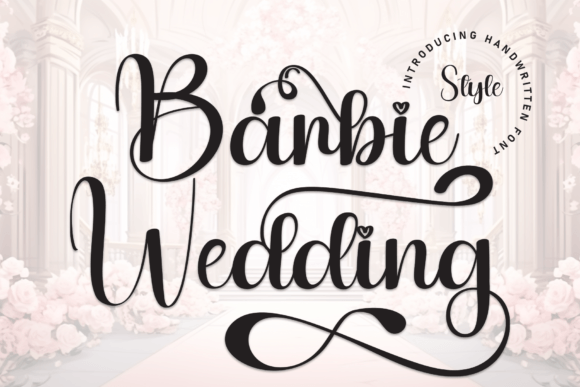
The Sweetest Wedding Invitation: A Closer Look at the Barbie Wedding Font
Have you ever found yourself flipping through wedding magazines, envisioning the perfect invitation for your special day? Maybe you’ve even sketched out a few designs in your notebook, trying to capture the essence of a whimsical and romantic celebration. For designers and brides-to-be alike, the right font can make all the difference in setting the tone for a magical day.
Enter the Barbie Wedding Font, a delightful handwritten display font that’s as sweet as it is versatile. With its cute and fun aesthetic, this font is perfect for writing wedding invitations, cards, and any other design that needs a touch of playfulness. Whether you’re a seasoned designer or a DIY enthusiast, the Barbie Wedding Font is a valuable addition to your toolkit, offering endless possibilities for creativity and self-expression.
Barbie Wedding Font Key Features
- Font Style: A custom, cursive script font designed to resemble a wedding invitation font.
- Unique Characteristics: Features intricate details, swashes, and flourishes, making it a unique and elegant choice for wedding designs.
Barbie Wedding Font Review
I recently had the chance to work with the Barbie Wedding Font and I must say it’s a unique and fun addition to any design project. ✨
The font’s cursive and whimsical style makes it perfect for creating a fairytale-like atmosphere in your designs. It’s ideal for projects that need a touch of romance and elegance. ✨
Here are some of the font’s strengths:
- Playful and fun – The font’s playful nature makes it perfect for creating eye-catching designs that stand out.
- Highly customizable – The font can be easily customized to fit your design needs, making it versatile and adaptable.
- Great for feminine designs – The font’s feminine and elegant style makes it perfect for creating designs that target a female audience.
- Not suitable for formal designs ⚠️ – The font’s playful nature may not be suitable for formal designs or projects that require a more serious tone.
Overall, I think the Barbie Wedding Font is a great addition to any designer’s toolkit, but it’s essential to consider its limitations and use it accordingly. With a little creativity and planning, this font can help you create stunning and eye-catching designs that leave a lasting impression.
The Barbie Wedding Font is ideal for:
- Wedding websites and social media graphics
- Wedding planners and coordinators
- Wedding-themed crafts and decorations